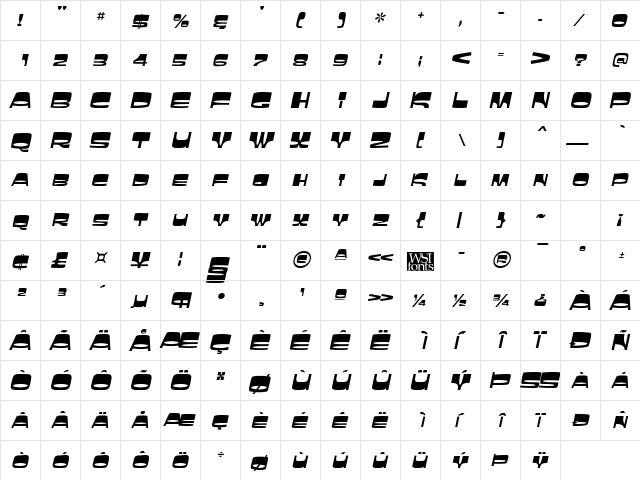
Sunbelt Italic
Design Context for Sunbelt Typeface
Sunbelt is a composed and adaptable typeface that performs quietly and consistently across a wide range of design contexts. Its italic angle brings a sense of urgency and motion to the letterforms.
Pro Tip: Try Sunbelt for annotation and caption copy alongside an upright companion — the contrast in angle creates a dynamic but ordered typographic system.